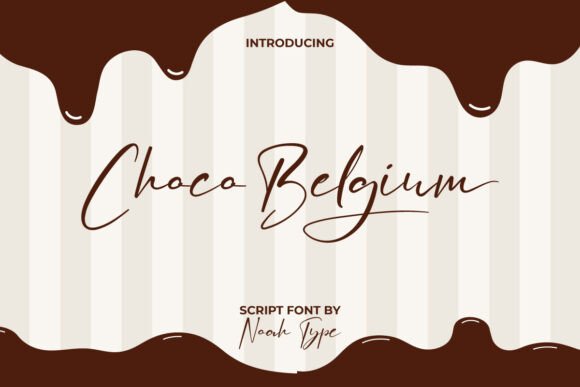
Introducing Choco Belgium Font: The Ultimate Stylish Handwriting Script Font
Are you looking for a font that can add a touch of elegance and sophistication to your designs? Look no further than Choco Belgium Font, a beautiful handwriting script font with a professional signature style. In this article, we’ll explore the features and benefits of Choco Belgium Font, and how it can be used to elevate your designs across various industries.
What is Choco Belgium Font?
Choco Belgium Font is a stylish handwriting script font that boasts a professional signature style. Its strokes and lines are carefully crafted to look natural and beautiful, making it perfect for a wide range of design applications. Whether you’re creating a logo, brochure, or social media post, Choco Belgium Font is sure to make your designs stand out.
Key Features of Choco Belgium Font
- Natural and Beautiful Strokes: The strokes and lines in Choco Belgium Font are designed to look natural and beautiful, giving your designs a unique and elegant feel.
- Professional Signature Style: Choco Belgium Font has a professional signature style that is perfect for creating sophisticated and high-end designs.
- Versatile: Choco Belgium Font is versatile and can be used across various industries, including bakery and pastry, café, cosmetic, event or wedding organizer, furniture, hotel and resort, printing, publishing, and more.
Industries that Can Benefit from Choco Belgium Font
Choco Belgium Font is suitable for a wide range of industries, including:
- Bakery and Pastry: Add a touch of elegance to your bakery or pastry branding with Choco Belgium Font.
- Café: Create a sophisticated and inviting atmosphere for your café with Choco Belgium Font.
- Cosmetic: Elevate your cosmetic brand with Choco Belgium Font’s professional signature style.
- Event or Wedding Organizer: Make your event or wedding branding stand out with Choco Belgium Font’s unique and elegant feel.
- Furniture: Add a touch of sophistication to your furniture branding with Choco Belgium Font.
- Hotel and Resort: Create a luxurious and inviting atmosphere for your hotel or resort with Choco Belgium Font.
- Printing: Use Choco Belgium Font for your printing designs, such as brochures, flyers, and business cards.
- Publishing: Elevate your publishing designs, such as book covers and magazines, with Choco Belgium Font.
Benefits of Using Choco Belgium Font
Using Choco Belgium Font can bring numerous benefits to your designs, including:
- Elegance and Sophistication: Choco Belgium Font adds a touch of elegance and sophistication to your designs, making them stand out from the crowd.
- Versatility: Choco Belgium Font is versatile and can be used across various industries and design applications.
- Unique and Beautiful Strokes: The natural and beautiful strokes in Choco Belgium Font make your designs unique and eye-catching.
- Professional Signature Style: Choco Belgium Font’s professional signature style gives your designs a high-end feel.
How to Use Choco Belgium Font
Using Choco Belgium Font is easy and straightforward. Here are some tips on how to get started:
- Experiment with Different Styles: Experiment with different styles and sizes to find the perfect fit for your design.
- Pair with Other Fonts: Pair Choco Belgium Font with other fonts to create a unique and visually appealing design.
In conclusion, Choco Belgium Font is a stylish handwriting script font with a professional signature style that can elevate your designs across various industries. Its natural and beautiful strokes, versatility, and unique feel make it a great addition to any design project. Whether you’re a designer, entrepreneur, or small business owner, Choco Belgium Font is a great choice for adding a touch of elegance and sophistication to your designs.
- What is Choco Belgium Font?: Choco Belgium Font is a stylish handwriting script font with a professional signature style.
- Can I pair Choco Belgium Font with other fonts?: Yes, Choco Belgium Font can be paired with other fonts to create a unique and visually appealing design.